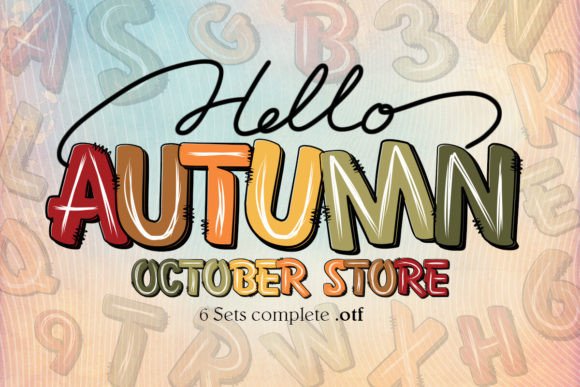
Hello Autumn Font
Discover the true essence of seasonal celebrations with the Hello Autumn Font. This striking font contains six unique styles, each represented in a distinct color to help you effectively capture the spirit of various holidays. Whether designing for Halloween, elevating Thanksgiving creativity, or giving a whimsical touch to Christmas, this font effortlessly balances modern sensibility with tradition. With these six handy files, you can smoothly transition your designs through the magical autumn season and right up to the heart-warming Christmas festivities. Infuse your creations with the charm of ‘Hallothannksmas’ and let your ideas come alive with the Hello Autumn Font.